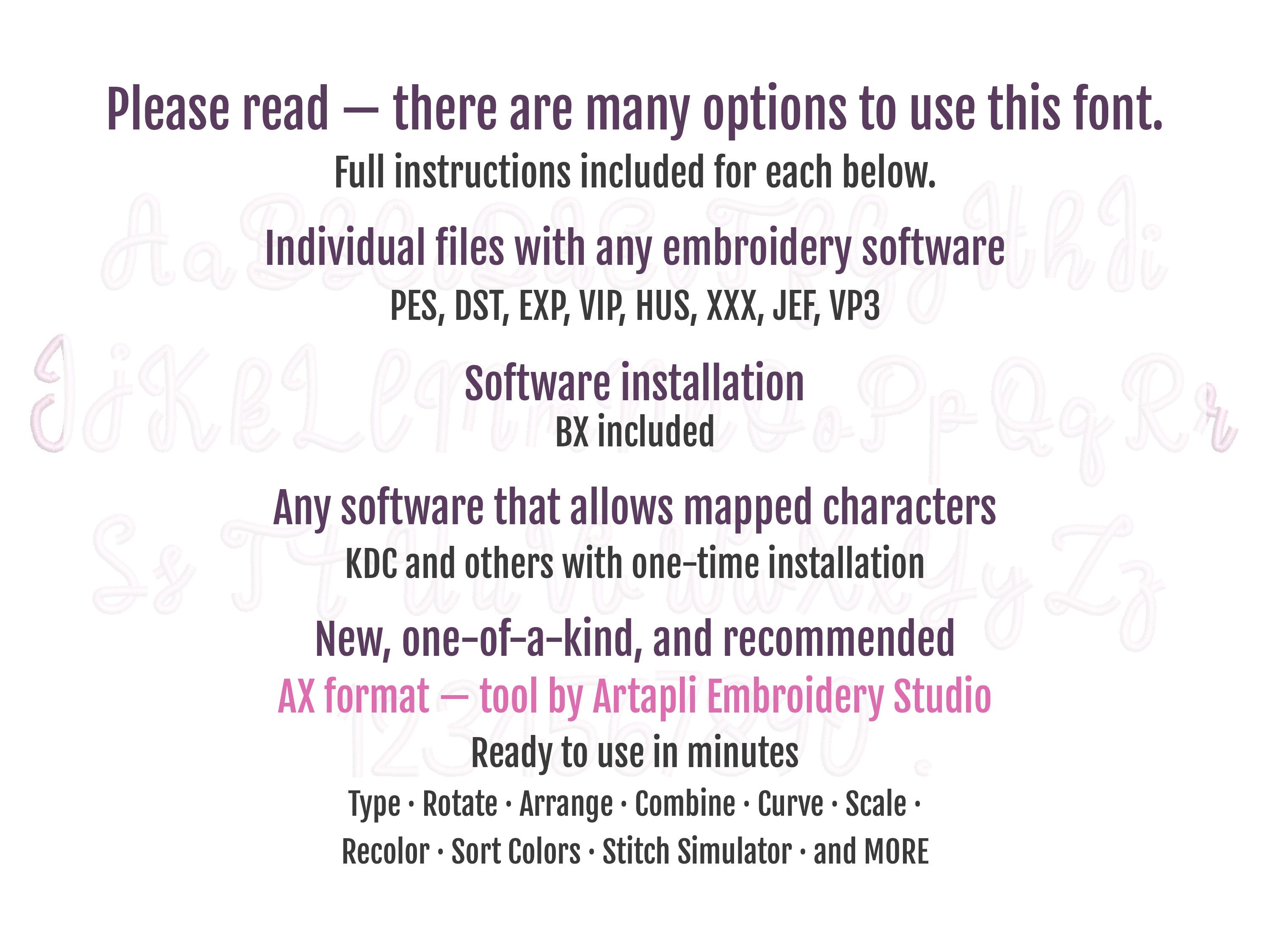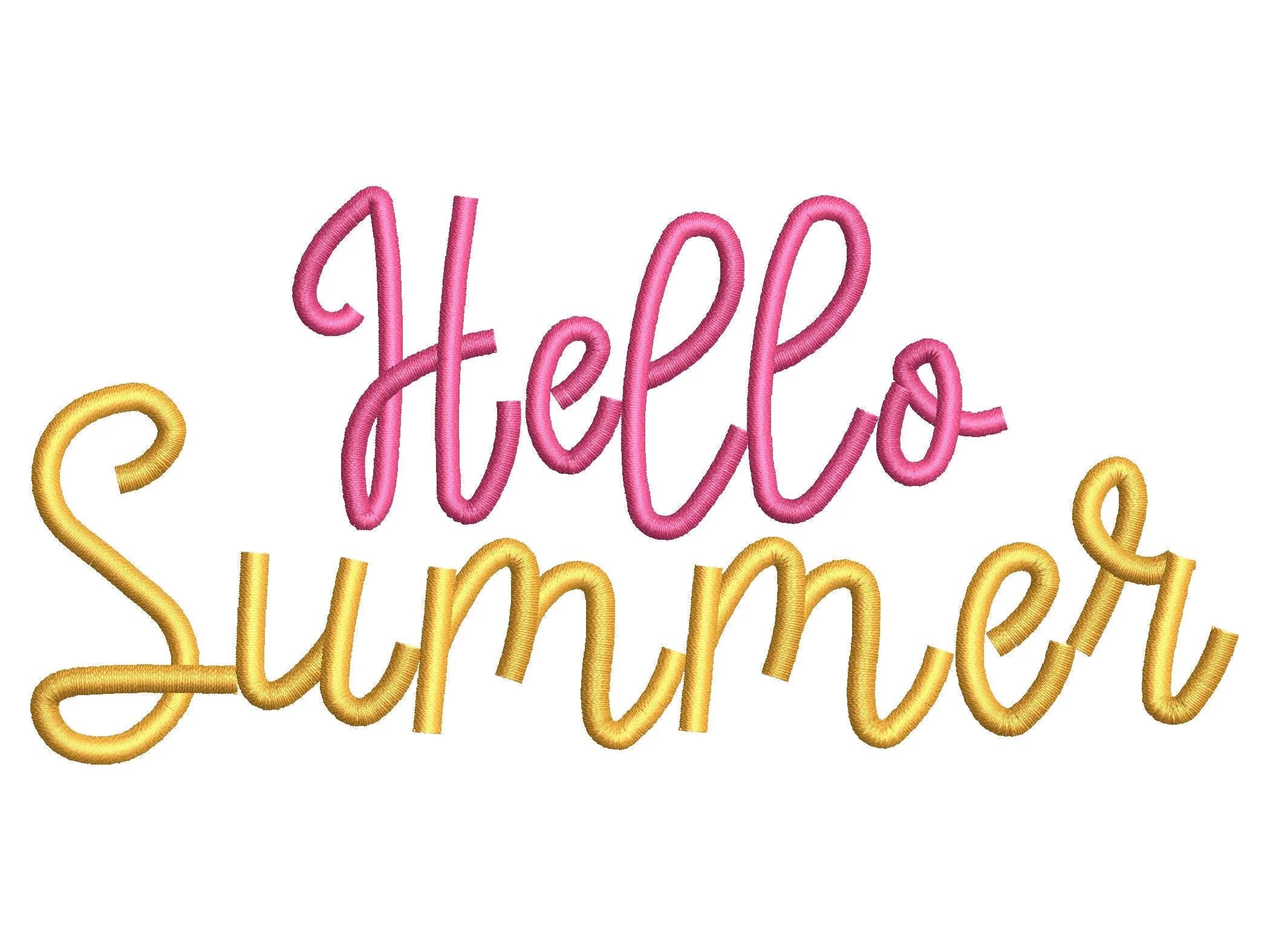
Satin stitch script Font alphabet playful kids baby monogram name machine embroidery designs assorted mini and small sizes, BX included
Whole alphabet A-Z uppercase and lowercase letters, numbers and period .